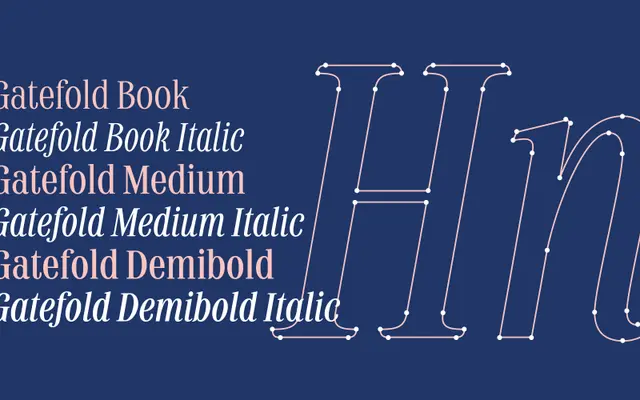
Gatefold
The Designers Foundry · Scott Biersack · 2016
A calligraphically influenced display serif by Scott Biersack, originating from the Type@Cooper Extended Program, offering six styles across three weights with matching italics.
Developed over nearly two years from the 2015-2016 Type@Cooper Extended Program in New York, this display serif carries sharp brush-like terminals, delicate serifs and a tall x-height suited to editorial headlines. Six styles span Book, Medium and Demibold with corresponding italics, supported by swash capitals, discretionary ligatures and a 906-glyph set. It has found real-world use with Harper Collins and Magnolia Bakery, pointing toward its comfort in premium editorial and branding contexts.
An editorial display serif with brush-like terminals and delicate serifs, developed within the Type@Cooper program. Its tall x-height and calligraphic sharpness place it firmly in the display serif tradition.